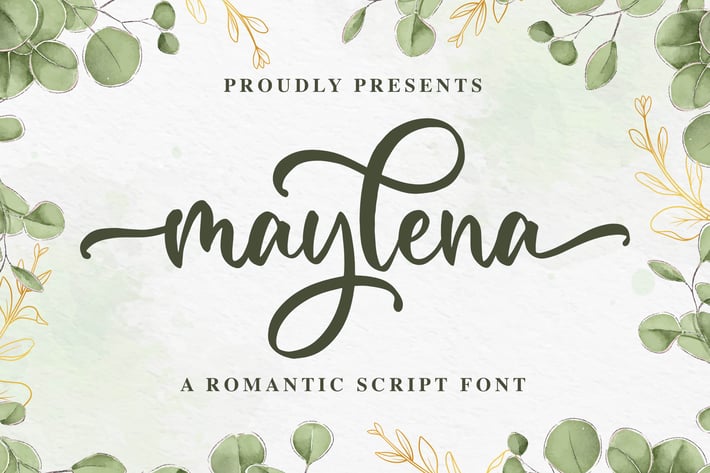
Maylena a Romantic Script Font
Introducing of our new product the name is Maylena a Romantic Script Font. Maylena inspired by romantic vibes this font is a fun theme very good for display, wedding, valentine theme, logotype and etc